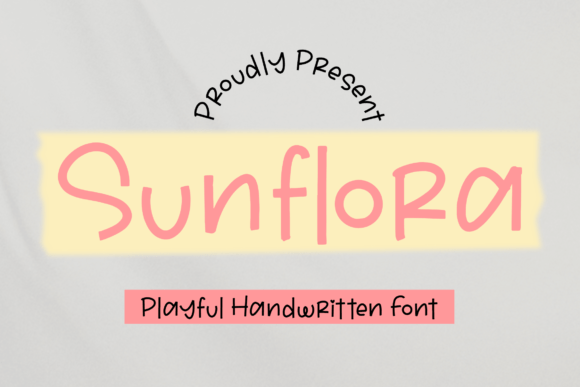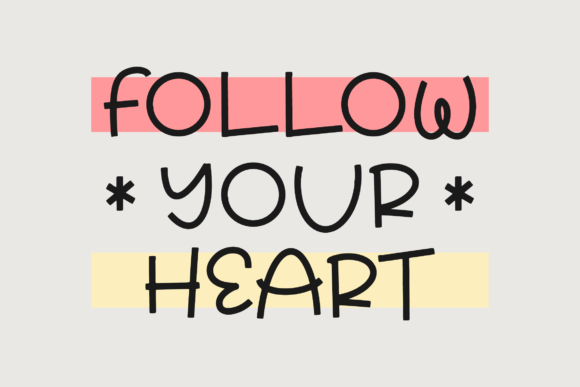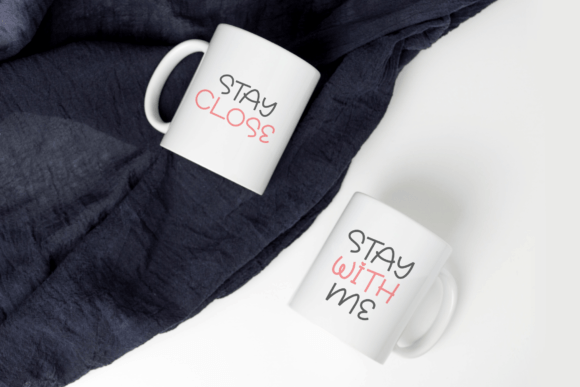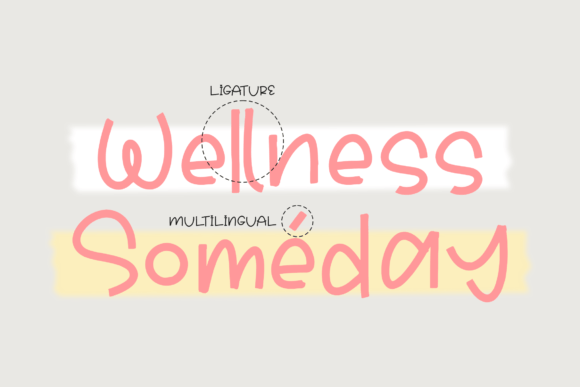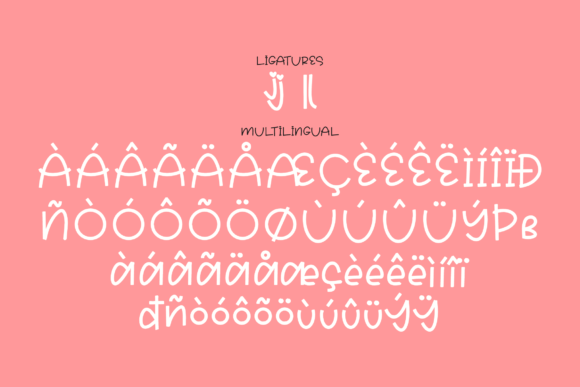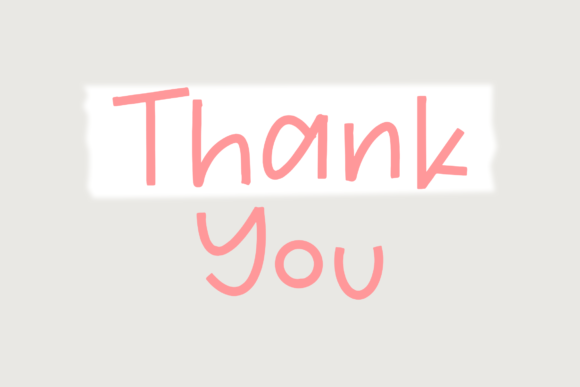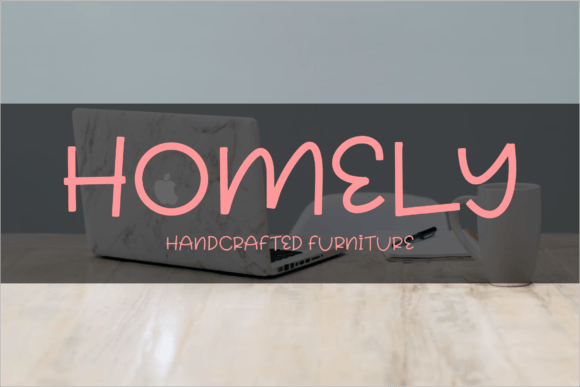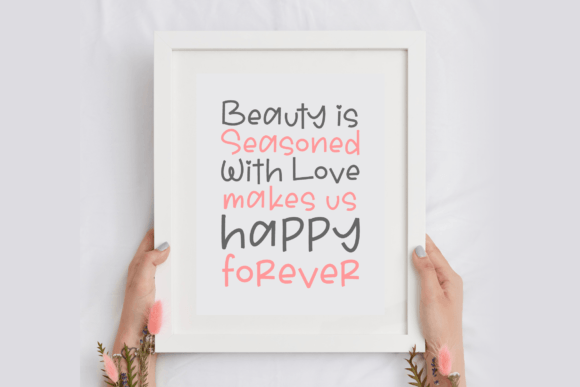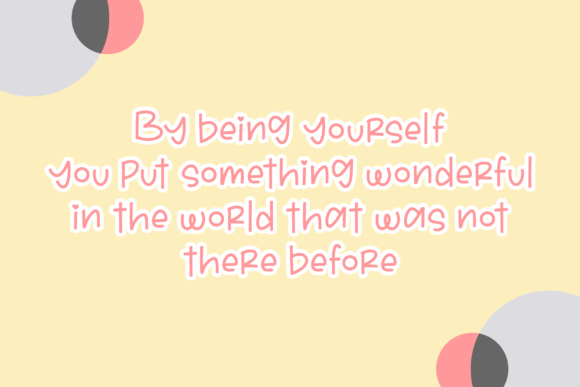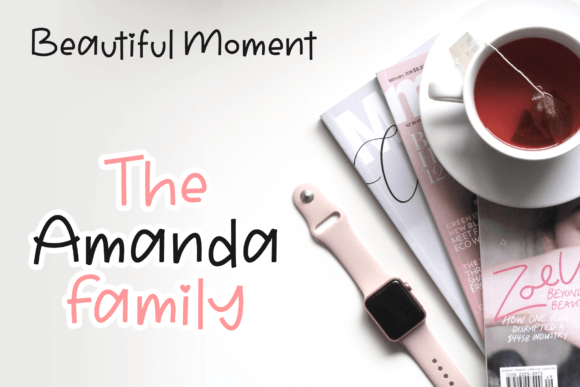
Sunflora Font
About Sunflora Font
Introducing Sunflora, a playfully handmade display font designed to bring a special touch to your creative projects. This font delivers an incredibly playful and handwritten style, making it perfect for a variety of design ideas. Whether you’re working on branding, posters, invitations, or any other project that needs a touch of whimsy, Sunflora is masterfully crafted to become a favorite and elevate your creative ideas to new heights.
Sunflora’s playfully handmade feel adds a unique and whimsical charm to your text. The font’s playful demeanor makes it suitable for a wide range of applications, bringing a lighthearted and creative touch to your designs.
The masterful design of Sunflora ensures that it becomes a true favorite in your font collection. Its handwritten style adds a personal and authentic feel, making it stand out and leave a lasting impression on your audience.
Imagine using Sunflora for branding, where its playful and handwritten font creates a memorable and distinctive visual identity. In posters or invitations, Sunflora adds a touch of whimsy, making your designs more engaging and captivating.
For any project that needs a special playful touch, Sunflora is ready to become your go-to font. Its versatility allows it to adapt to different contexts, adding a creative and handmade feel to each of your design ideas.
In conclusion, Sunflora is more than just a font; it’s a design tool that invites you to infuse your projects with playfulness and creativity. Whether you’re working on branding, posters, or invitations, Sunflora is ready to be the playful and masterfully designed font that enhances the visual impact of your creative endeavors.